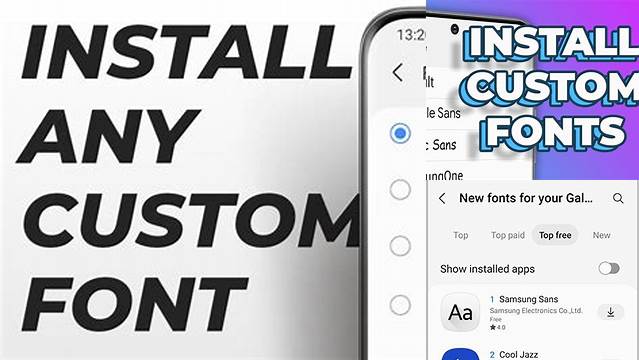
One UI 5 Fonts: Your Ultimate Customization Guide
Introduction to One UI 5 Fonts
Hey guys! Ever wondered about the fonts that make your Samsung device look so sleek and modern? Well, you've come to the right place! In this article, we're diving deep into the world of One UI 5 fonts, exploring everything from the default font to customization options and how these fonts contribute to the overall user experience. Samsung's One UI 5 isn't just about the latest features; it’s also about the visual appeal, and fonts play a massive role in that. The default font, often a variant of SamsungOne, is designed for clarity and readability, ensuring that everything from your messages to your settings menus looks crisp and clean. But the beauty of One UI 5 is that you're not stuck with just one option. Customization is key, and Samsung knows this.
One UI 5 offers several built-in font choices, each with its unique personality. Whether you prefer something classic, modern, or a bit quirky, there’s likely a font that suits your taste. Beyond the pre-installed options, One UI 5 allows you to download and install third-party fonts, giving you virtually limitless possibilities. Want to use that cool font you saw on a design blog? Go for it! The flexibility to change fonts means you can truly personalize your device to reflect your style. Think about it: your phone is something you use every day, so why not make it feel like you? Changing the font is a simple yet powerful way to achieve this. It’s like giving your phone a fresh coat of paint, but instead of colors, you’re playing with typography. And it's not just about aesthetics; the right font can also improve readability. If you struggle with eye strain, choosing a font that’s easier on the eyes can make a world of difference. So, let's get started and explore how you can make the most of the font options in One UI 5!
Default Font in One UI 5: SamsungOne
The default font in One UI 5 is typically a version of SamsungOne, and let me tell you, it’s a fantastic choice! SamsungOne is a font family designed by Samsung to ensure a consistent and modern look across all its devices. It's all about readability and clarity, making it a perfect fit for everything from your daily emails to those late-night browsing sessions. Think of SamsungOne as the reliable friend who’s always there for you. It’s not flashy or over-the-top, but it gets the job done with style and grace. The font is designed with clean lines and a balanced structure, which means it’s easy to read even on smaller screens. This is super important because, let’s face it, we spend a lot of time staring at our phones. A font that’s easy on the eyes can reduce strain and make your overall experience much more pleasant.
What’s really cool about SamsungOne is that it’s not just one font; it’s a whole family of fonts. This means there are different weights and styles available, allowing Samsung to use the font in various contexts without sacrificing consistency. For example, headings might use a bolder weight to stand out, while body text uses a lighter weight for comfortable reading. This attention to detail is what makes One UI 5 feel so polished and professional. SamsungOne also supports a wide range of languages, which is crucial for a global brand like Samsung. Whether you’re typing in English, Spanish, Chinese, or any other language, SamsungOne has you covered. This ensures that everyone can enjoy the same level of clarity and readability, no matter where they are in the world. So, next time you’re using your Samsung device, take a moment to appreciate SamsungOne. It’s the unsung hero of One UI 5, working tirelessly behind the scenes to make your digital life a little bit easier and a lot more stylish.
You can filter by category, price, and popularity, making it easy to find something that catches your eye. When you find a font you like, just tap on it to view more details and see a preview of how it will look on your device. If you’re happy with it, hit the download button, and the font will be installed on your phone. But the Galaxy Store isn’t the only place to find fonts. You can also download fonts from other sources on the web. However, it’s super important to be careful when downloading fonts from the internet. Make sure you’re downloading from a reputable source to avoid any security risks. Once you’ve downloaded a font file (usually in .ttf or .otf format), you’ll need to install it on your phone. One UI 5 doesn’t have a built-in way to install fonts directly from files, so you’ll need to use a third-party app. There are several font installer apps available on the Google Play Store, such as iFont or FontFix. These apps make it easy to install fonts from files you’ve downloaded. Just download and install one of these apps, follow the instructions, and you’ll be able to install your new fonts in no time. Once the font is installed, it will appear in your list of available fonts in the Font style menu, just like any other font. So, go ahead and explore the vast world of third-party fonts and find the perfect font to express your personality!
Best Fonts for Readability in One UI 5
Let's talk about readability, guys! While having a stylish font is great, it’s even more important to choose a font that’s easy to read, especially if you spend a lot of time looking at your phone (and let’s be honest, who doesn’t?). A font that’s easy on the eyes can reduce strain and make your overall experience much more enjoyable. So, what are the best fonts for readability in One UI 5? Well, the default SamsungOne font is a fantastic starting point. As we discussed earlier, SamsungOne is designed with clarity in mind, featuring clean lines and a balanced structure that makes it easy to read in various sizes and weights.
But if you’re looking for other options, there are several fonts that are known for their readability. Roboto is a popular choice; it’s a sans-serif font that’s widely used on Android devices. Roboto has a modern and clean look, and it’s very legible, even at small sizes. Another great option is Open Sans. This font is also a sans-serif font, and it’s designed to be highly readable on screens. Open Sans has a neutral and friendly appearance, making it a great choice for everyday use. If you prefer a serif font (a font with small decorative strokes at the ends of the letters), Droid Serif is a solid option. Serif fonts can sometimes be harder to read on screens, but Droid Serif is specifically designed for digital readability. It has a classic and elegant look, while still being easy on the eyes. When choosing a font for readability, there are a few things to keep in mind. First, look for fonts with clear and distinct letterforms. The letters should be easy to distinguish from each other, even at small sizes. Second, consider the font weight. A font that’s too light or too bold can be difficult to read. A medium weight is usually the best choice. Finally, think about the overall appearance of the font. A font that’s too decorative or stylized can be distracting and make it harder to focus on the text. So, stick with fonts that have a clean and simple design. Ultimately, the best font for readability is the one that you find most comfortable to read. Experiment with different fonts and see which one works best for you. Your eyes will thank you!
Customizing Font Size and Style for Accessibility
Accessibility is a big deal, and One UI 5 has some fantastic features that let you customize your font size and style to make your device easier to use. Whether you have visual impairments or just prefer larger text, One UI 5 has you covered. Adjusting the font size is super simple. Just head over to Settings > Display > Font size and style. Here, you’ll find a slider that allows you to increase or decrease the font size. Slide it to the right to make the font larger, and to the left to make it smaller. You’ll see a preview of the font size at the top of the screen, so you can easily find the perfect size for your needs. But One UI 5 doesn’t just let you change the font size; it also lets you adjust the font weight. On the same Font size and style screen, you’ll find a toggle for Bold font. Turn this on, and all the text on your device will appear in bold, making it easier to read. This can be especially helpful if you have trouble distinguishing letters or if you find regular fonts too thin.
In addition to changing the font size and weight, One UI 5 also offers a High contrast font option. This feature increases the contrast between the text and the background, making the text stand out more. To enable High contrast font, go to Settings > Accessibility > Visibility enhancements, and then toggle the High contrast font option. This can be a game-changer if you have low vision or if you find it difficult to read text on certain backgrounds. And if you really want to take things to the next level, One UI 5 also supports third-party accessibility apps. There are several apps available on the Google Play Store that offer even more customization options for fonts and text display. These apps can let you change the font color, adjust the line spacing, and even use custom fonts designed for people with visual impairments. Customizing your font size and style is a small change that can make a huge difference in your daily life. So, don’t hesitate to play around with the settings and find what works best for you. One UI 5 gives you the tools you need to make your device truly accessible and enjoyable to use.
Conclusion: Personalizing Your One UI 5 Experience with Fonts
So, there you have it, folks! We’ve taken a deep dive into the world of One UI 5 fonts, exploring everything from the default SamsungOne font to downloading third-party fonts and customizing font sizes and styles for accessibility. Fonts are such an integral part of our digital experience, and One UI 5 gives you the power to truly personalize this aspect of your device. Whether you’re looking to express your unique style, improve readability, or enhance accessibility, the font options in One UI 5 have you covered. Changing your font is a simple yet powerful way to make your phone feel more like you. It’s like choosing the perfect outfit or decorating your home – it’s all about creating an environment that reflects your personality and preferences. And with the vast array of fonts available, the possibilities are endless.
Don’t be afraid to experiment with different fonts and see what you like best. Try out a few different SamsungOne variants, download some third-party fonts from the Galaxy Store, or even venture into the world of font installer apps. You might be surprised at how much a new font can change the overall look and feel of your device. And remember, it’s not just about aesthetics. Choosing the right font can also improve readability and reduce eye strain. If you spend a lot of time reading on your phone, selecting a font that’s easy on the eyes can make a world of difference. So, take some time to explore the font options in One UI 5 and find the perfect font for your needs. Customizing your font size and style is another important aspect of personalizing your One UI 5 experience. One UI 5 makes it easy to adjust the font size and weight, and even offers features like High contrast font to enhance accessibility. These features are especially important for users with visual impairments, but they can also be helpful for anyone who wants to make their device easier to use. In conclusion, fonts are a key element of the One UI 5 experience, and Samsung has done a great job of providing users with a wide range of options for personalization. So, go ahead and unleash your inner typographer and make your One UI 5 device truly your own!